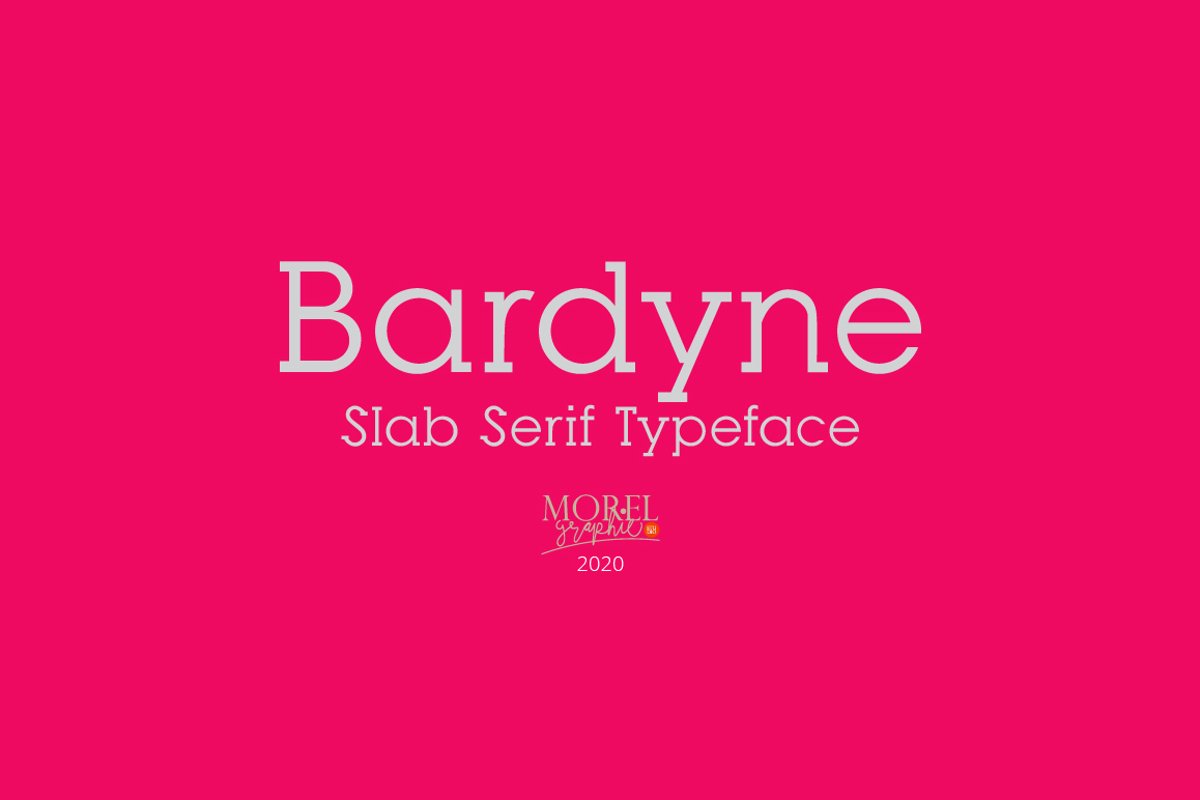
Bardyne
Introduce, this is our latest product, we named it
This product is Bardyne Font.
Bardyne Font is a type of Slab Serif type with Glyphs that is easy to read.
Bardyne Font is great for use on:
Title, Logo, quote, description, tagline, magazine